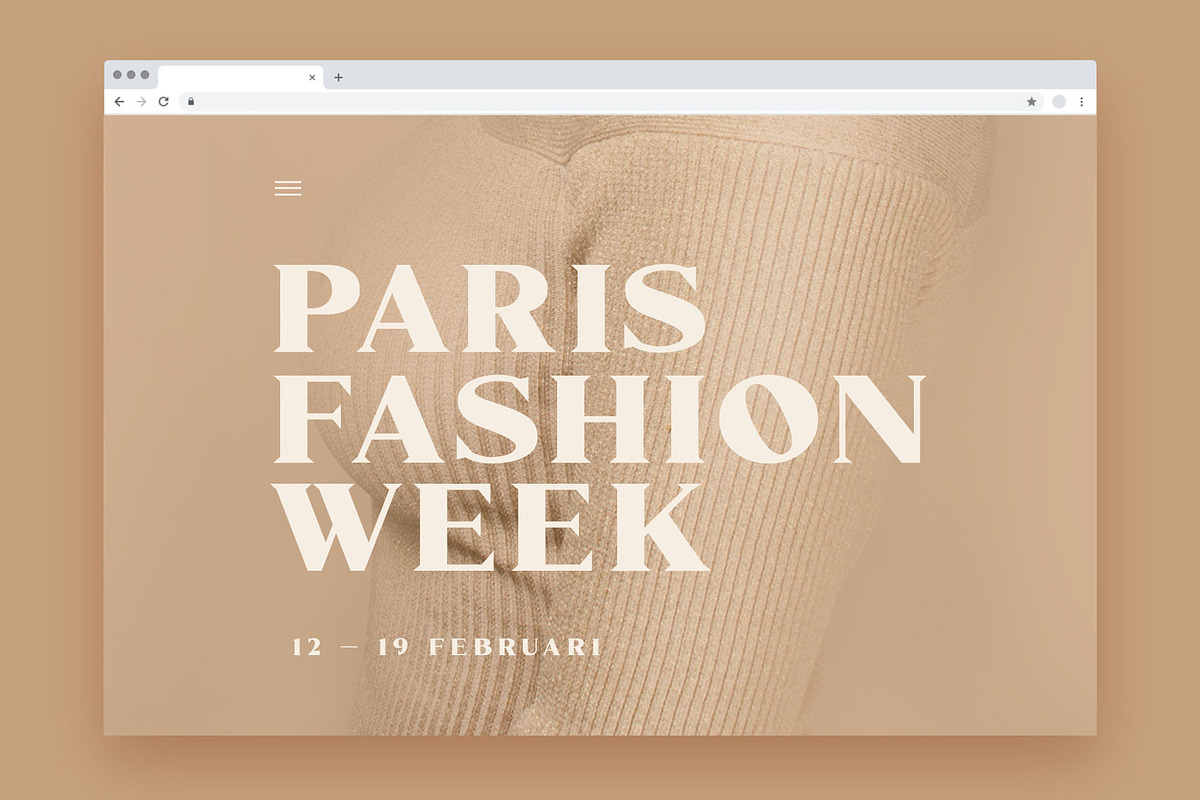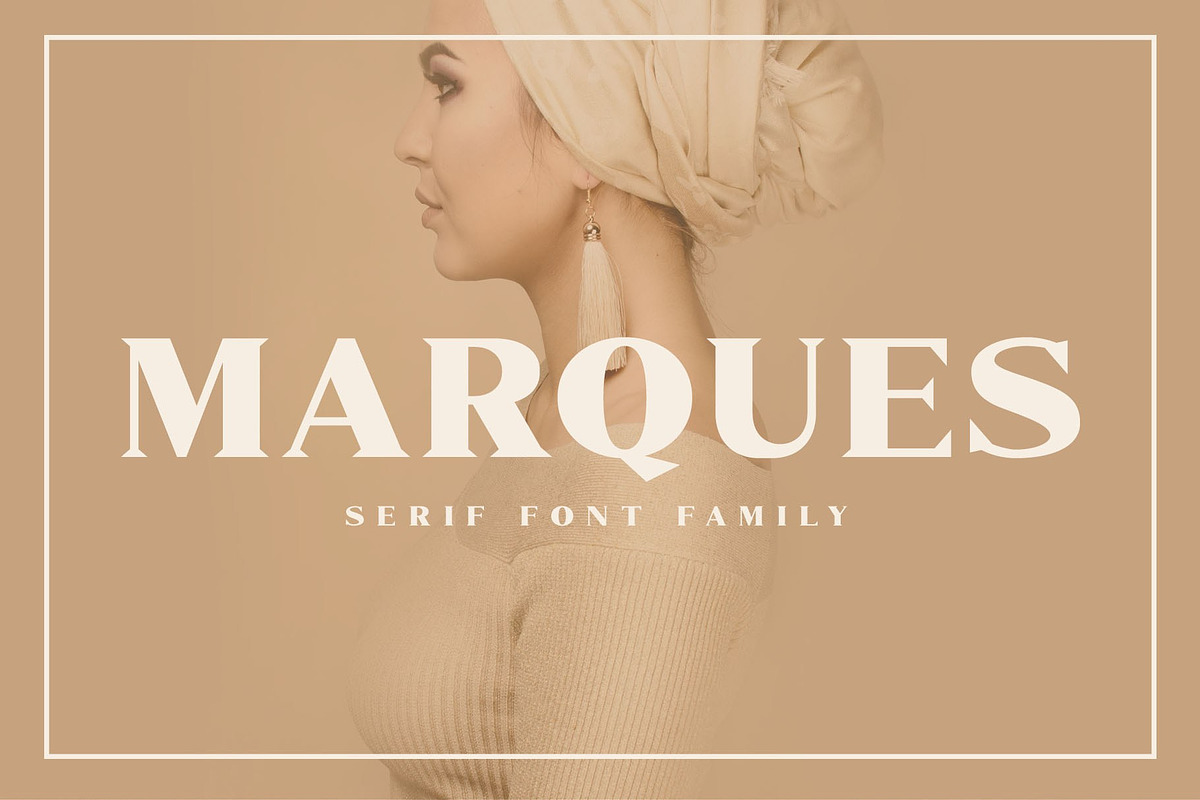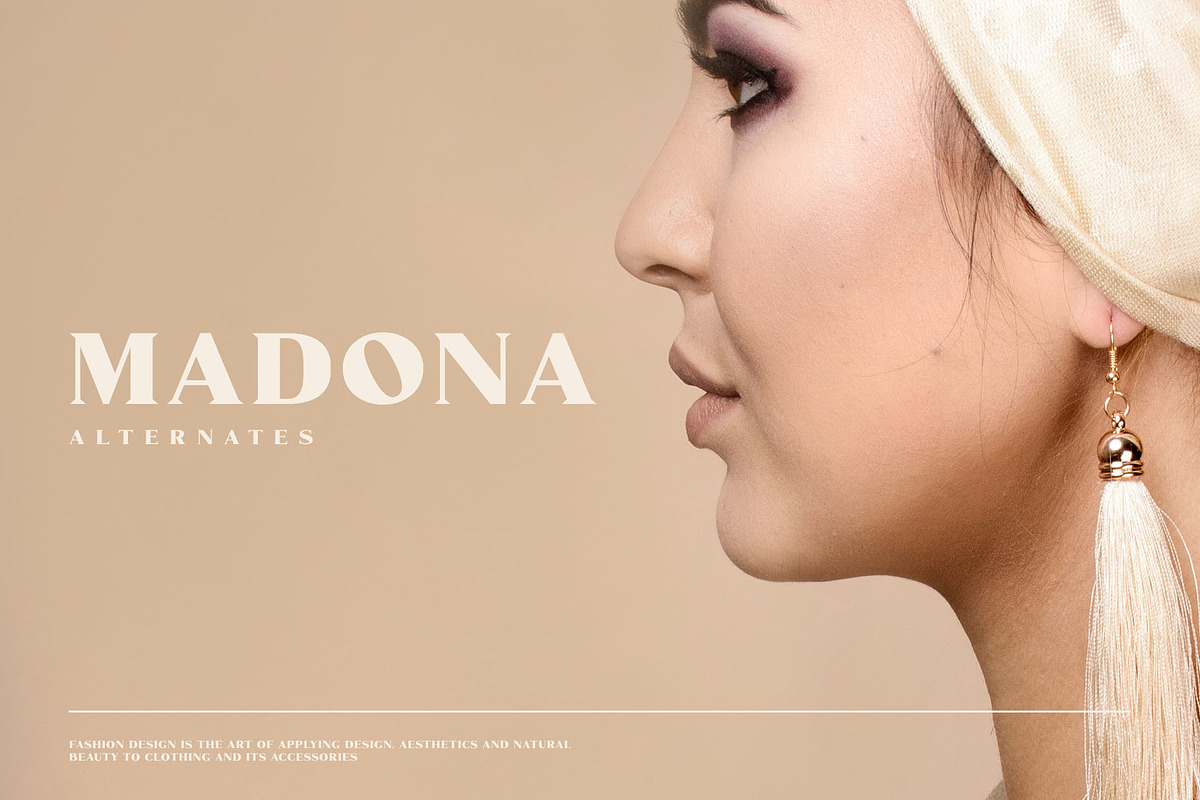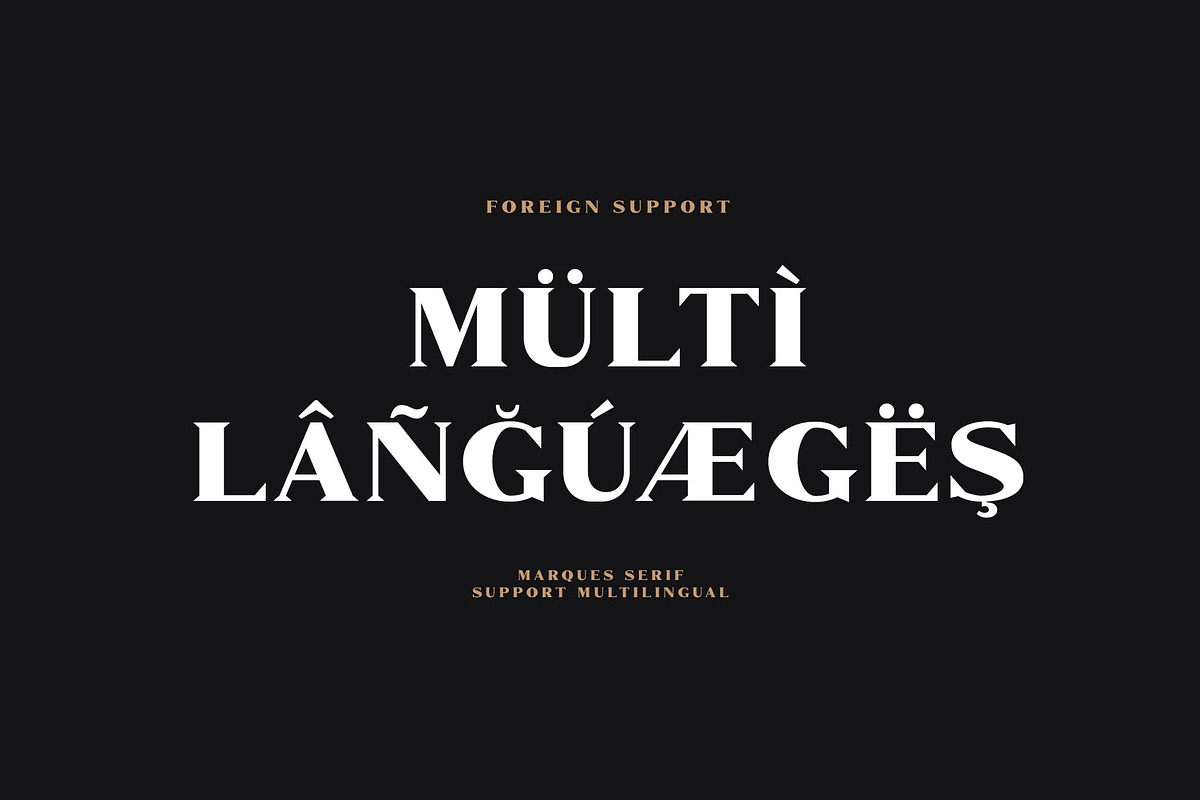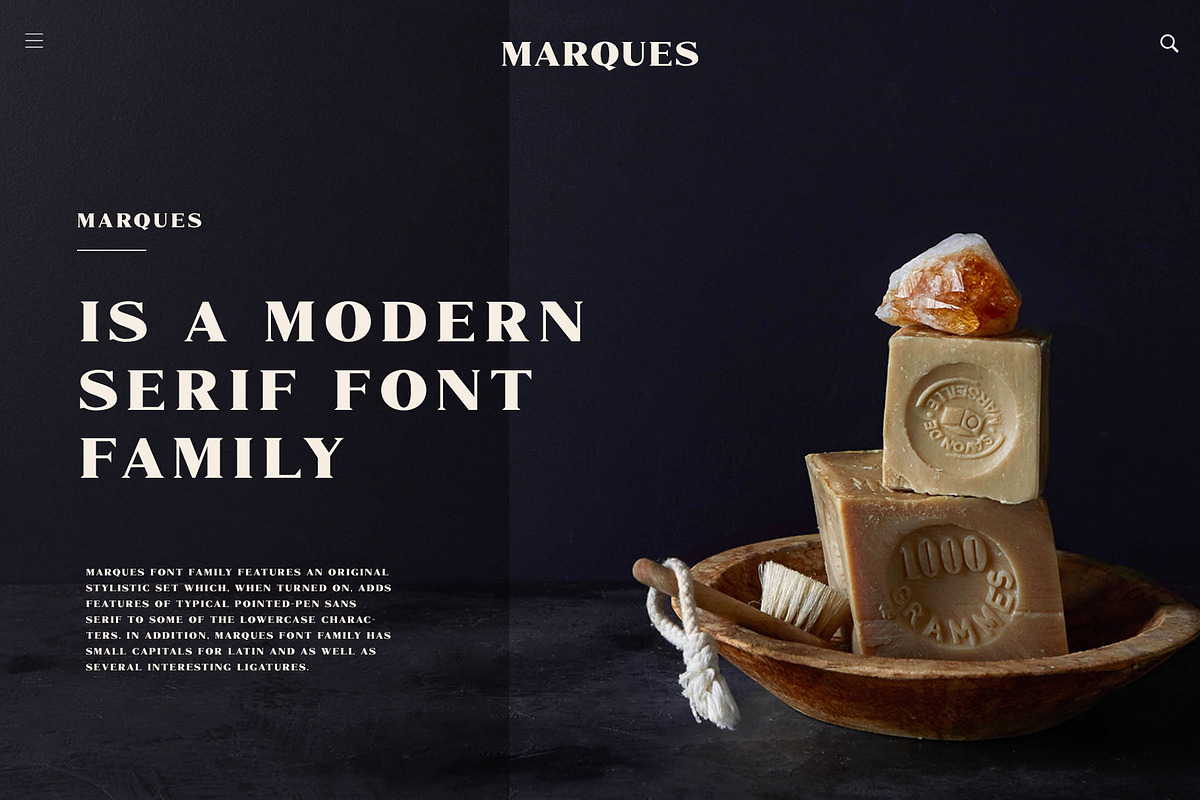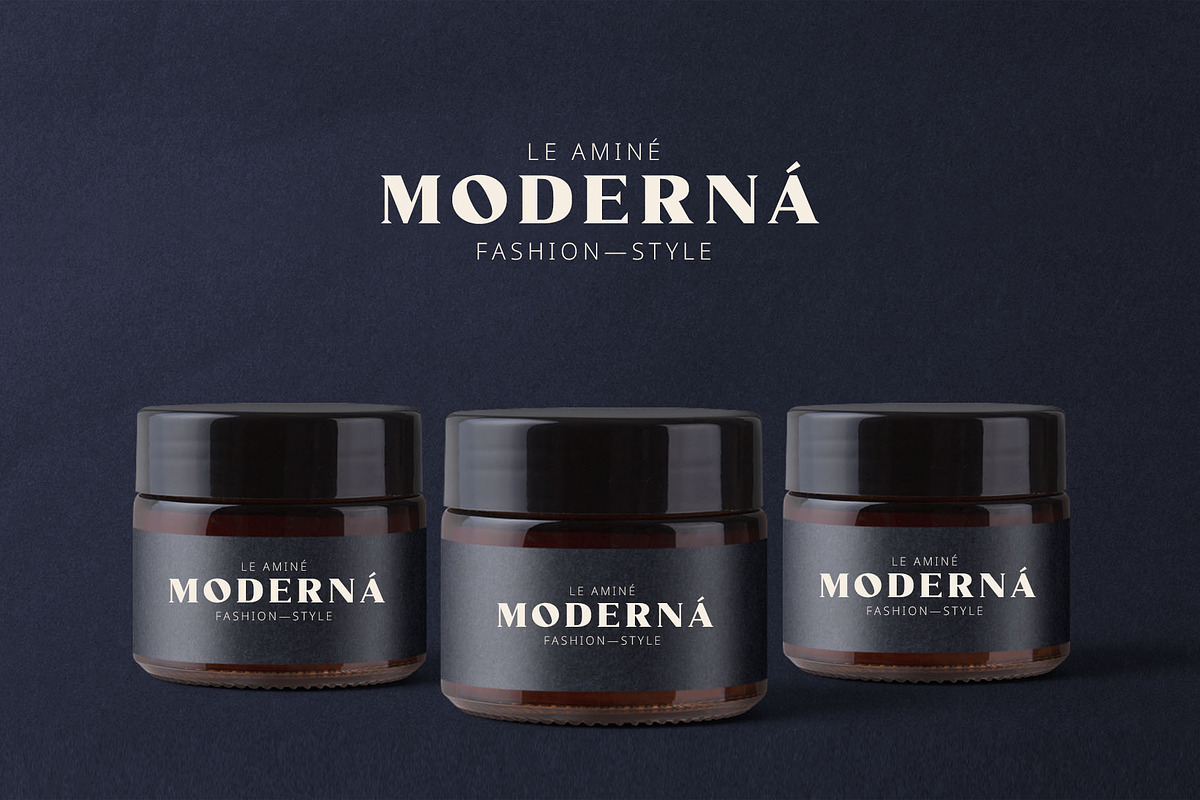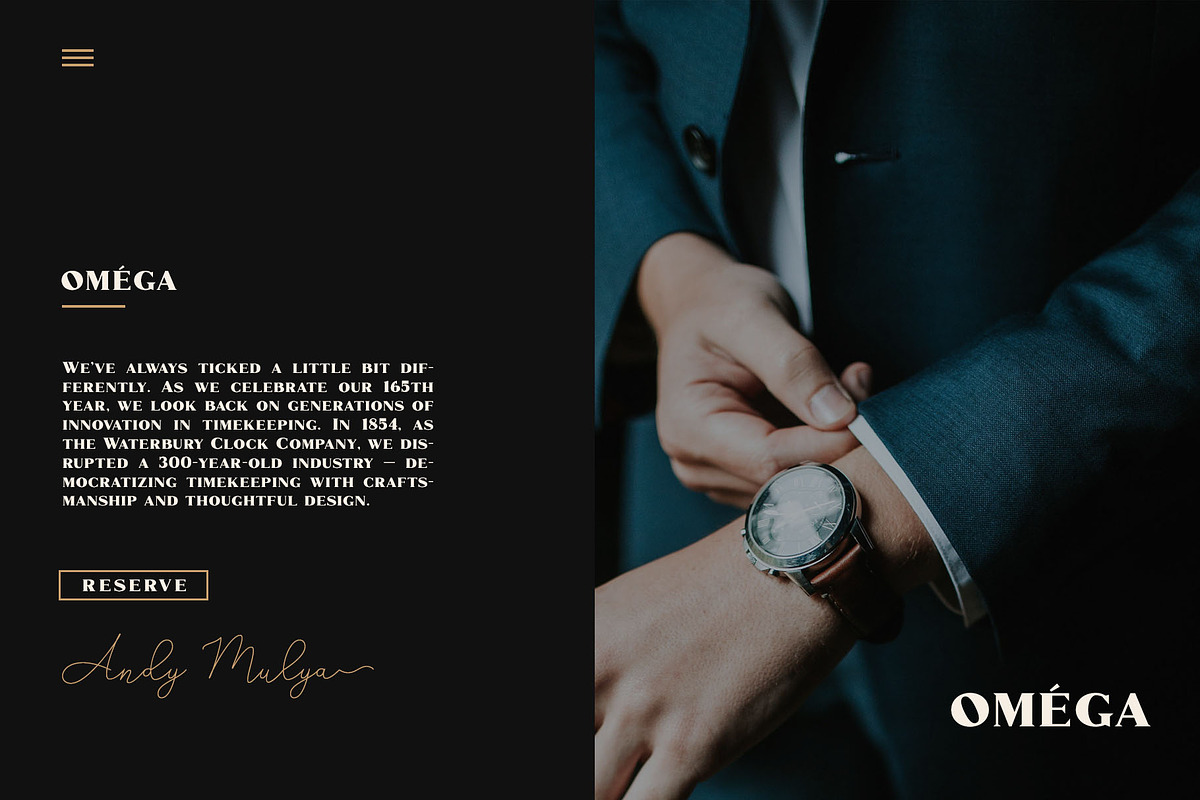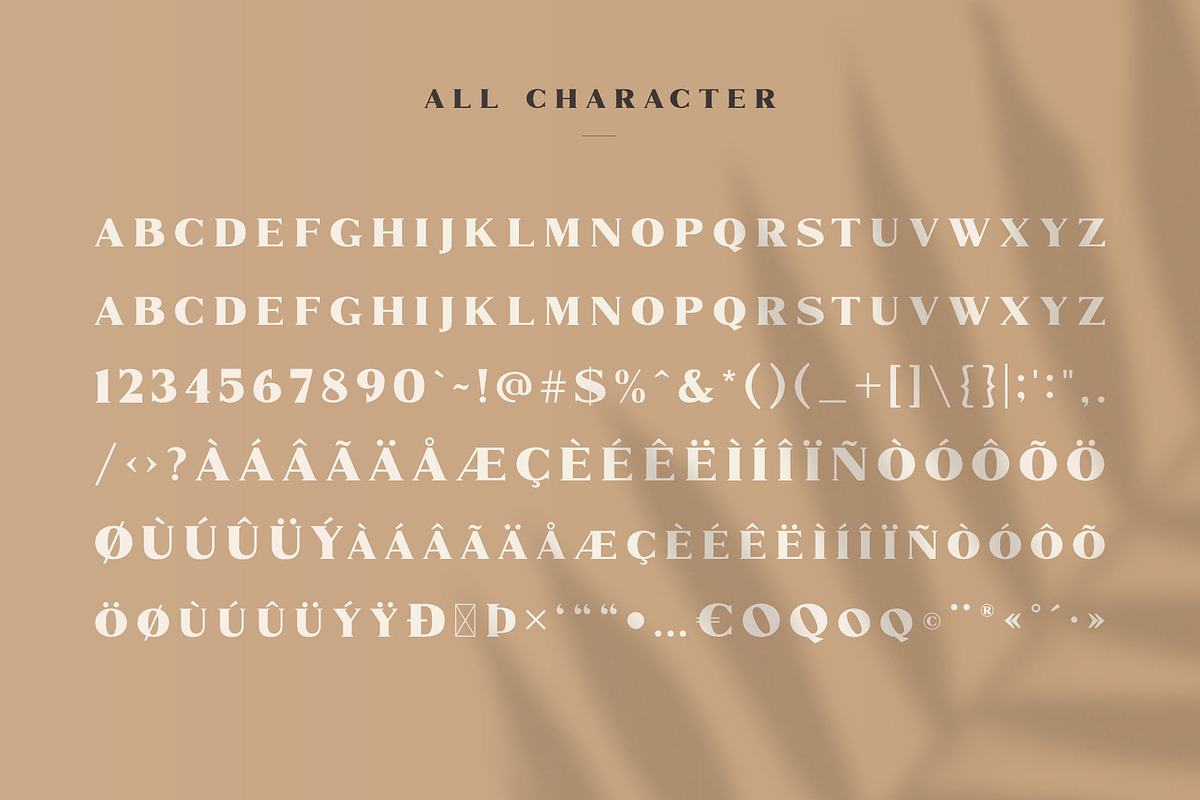
Marques - Modern Serif Font Family
Introducing New Font : Marques - Modern Serif Font Family
Marques Font Family is a modern serif font family whose design refers us to the style of modern sans serif. The distinctive features of Marques Font Family are the relatively low contrast of strokes, the slightly squarish shapes of round characters and the emphasized business like simplicity.
Marques Font Family features an original stylistic set which, when turned on, adds features of typical pointed-pen sans serif to some of the lowercase characters. In addition, Marques Font Family has small capitals for Latin and as well as several interesting ligatures.
Marques Font Family has been crafted from scratch with a structural logic of its own: a fusion of pure geometry and optical balance. By combining a variety of styles Marques Font Family is suitable for Logo, greeting cards, quotes, posters, branding, name card, stationary, design title, blog header, art quote, typography
Marques Font Family also suitable for art, modern envelope lettering or book design, happening style like handdrawn design or watercolor design theme, craft design, any DIY project, book title, wedding font, pop vintage design, or any purpose to make our art/design project look pretty and trendy.
- All Caps
- Accents (Multilingual characters) AÀÁÂÃÄÅCÇDÐEÈÉÊËIÌÍÎÏNÑOØÒÓÔÕÖUÙÜÚÛWYÝŸỲŸÆŒßÞþ